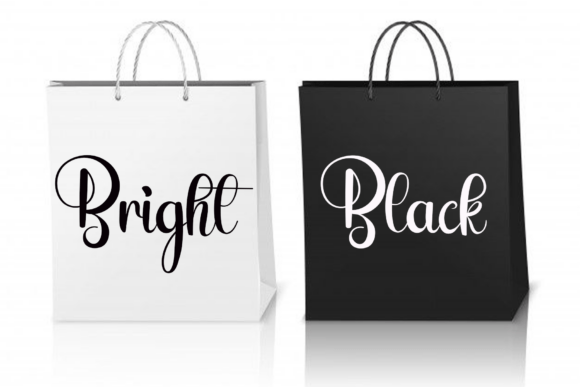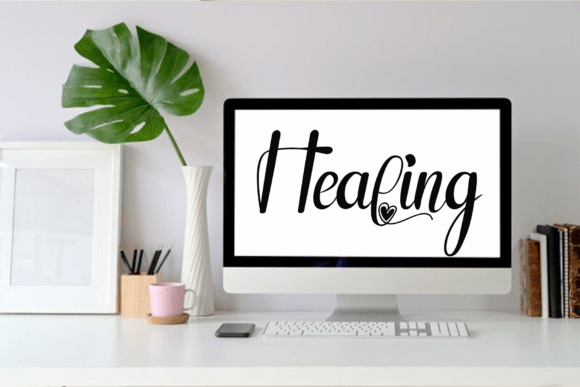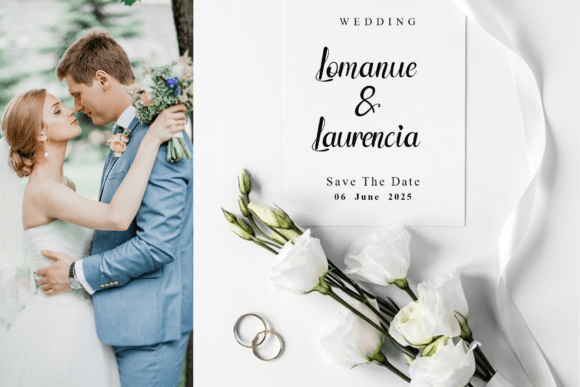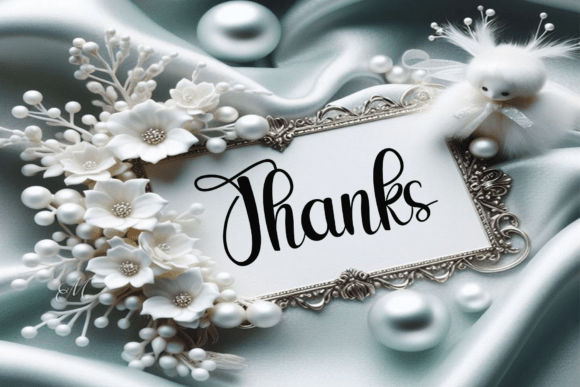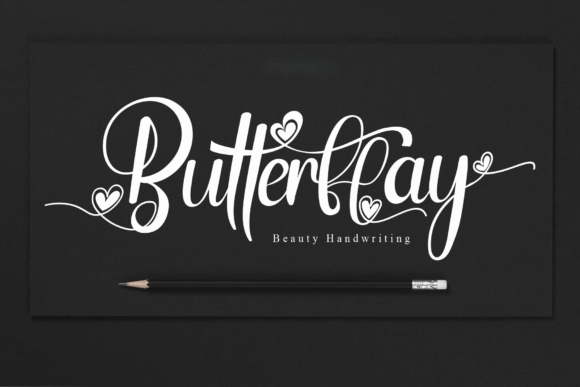
Introducing Butterfly Font: Elevate Your Designs with Elegance and Class
In the world of typography, fonts play a crucial role in conveying the tone and personality of a design. For designers and crafters looking to add a touch of sophistication and elegance to their projects, the Butterfly Font is an excellent choice. This trendy handwritten font boasts a contemporary atmosphere and impeccable form, inspired by timeless classic calligraphy.
What is Butterfly Font?
Butterfly Font is a beautiful, handwritten typeface that exudes elegance and refinement. Its unique, flowing lines and curves evoke a sense of classic calligraphy, while its modern twist makes it perfect for contemporary designs. Whether you’re working on a logo, branding project, invitation, or any other design that requires a touch of sophistication, Butterfly Font is an excellent choice.
Key Features of Butterfly Font
- Trendy and Contemporary: Butterfly Font has a modern, fresh feel that will elevate your designs and make them stand out.
- Inspired by Classic Calligraphy: The font’s timeless, classic inspiration ensures that it will add a touch of elegance and refinement to any design.
- Impeccable Form: The font’s precise, flowing lines and curves make it a joy to use and ensure that your designs look professional and polished.
- Handwritten Style: The font’s handwritten style adds a personal, human touch to your designs, making them more approachable and engaging.
Uses of Butterfly Font
Butterfly Font is versatile and can be used in a wide range of design projects, including:
- Logos and Branding: The font’s elegant, sophisticated style makes it perfect for logos and branding projects that require a touch of refinement.
- Invitations and Stationery: Butterfly Font is ideal for creating beautiful, elegant invitations, stationery, and other paper goods.
- Packaging and Product Design: The font’s modern, trendy style makes it a great choice for packaging and product design projects that require a touch of sophistication.
- Digital Designs: Butterfly Font can also be used in digital designs, such as social media graphics, website headers, and more.
Benefits of Using Butterfly Font
By using Butterfly Font in your designs, you can:
- Add Elegance and Class: The font’s sophisticated style will elevate your designs and add a touch of refinement.
- Stand Out from the Crowd: Butterfly Font’s unique, modern style will help your designs stand out and grab attention.
- Save Time: The font’s precise, flowing lines and curves make it easy to use, saving you time and effort in the design process.
Tips for Using Butterfly Font
To get the most out of Butterfly Font, follow these tips:
- Use it Sparingly: Use the font sparingly to add emphasis and create visual interest in your designs.
- Experiment with Colors: Try pairing the font with different colors to create a unique and eye-catching look.
- Mix and Match: Experiment with pairing Butterfly Font with other fonts to create a unique and interesting look.
Butterfly Font is a beautiful, trendy handwritten font that is perfect for designers and crafters looking to add a touch of elegance and class to their projects. With its impeccable form, contemporary atmosphere, and timeless classic inspiration, this font is sure to elevate your designs and make them stand out. Whether you’re working on a logo, invitation, or any other design project, Butterfly Font is an excellent choice.